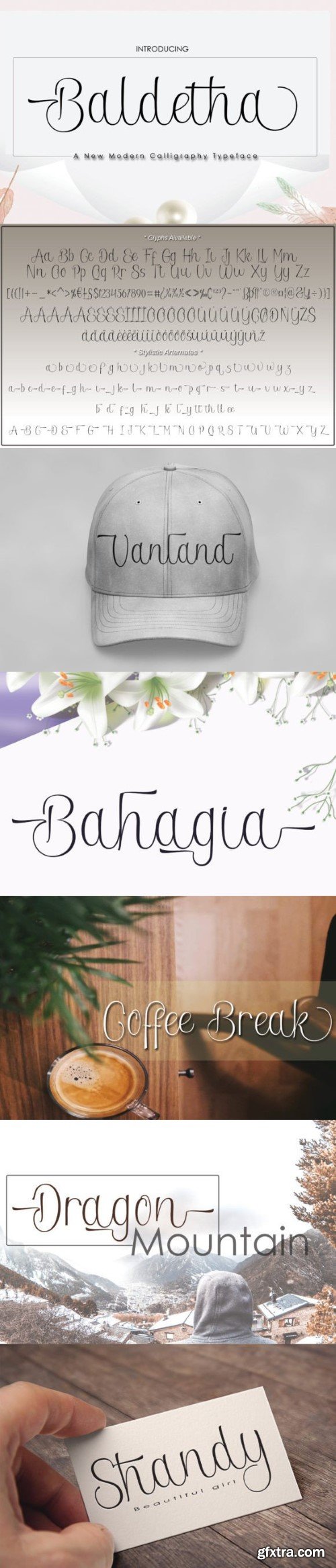
巴尔德萨塔字体
Baldetha Modern Calligraphy is perfect for wedding designs, shared moments, branding projects, logos, social media posts, advertisements, product packaging, product design, labels, photography, watermarks, invitations, stationery, and any project that requires a handwritten feel.